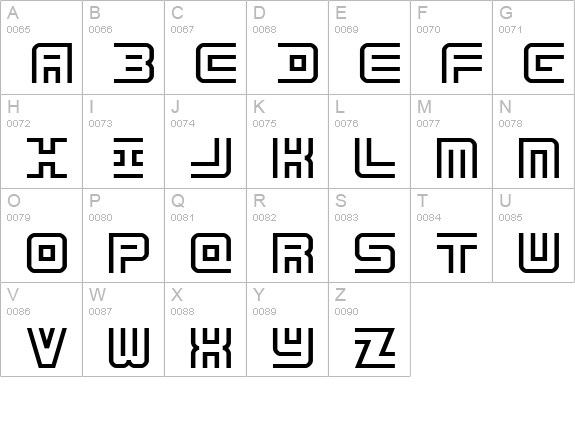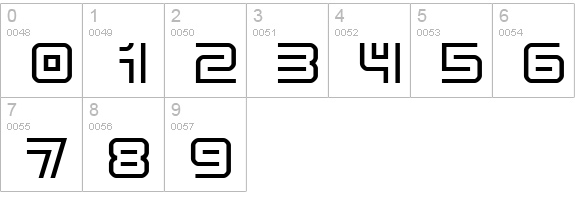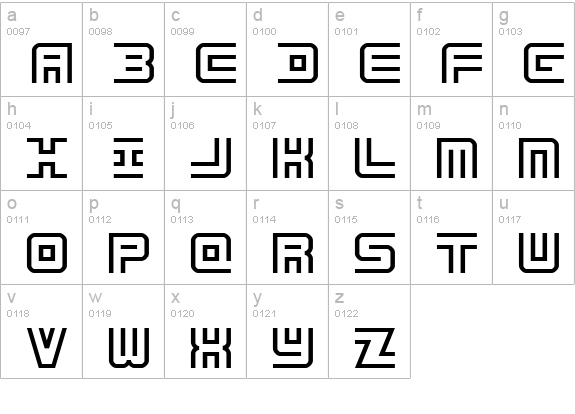
Undercover Font Details
Undercover font is a stunning display font that combines elegance and mystery in a perfect balance. This versatile typeface is designed to add a touch of intrigue to any creative project. With its sleek lines and carefully crafted details, Undercover font captures the essence of hidden secrets and covert operations. Featuring a unique blend of sharp edges and smooth curves, this font stands out from the crowd and commands attention. Its bold and confident presence makes it ideal for headlines, logos, posters, and branding materials. Whether you're working on a high-profile campaign or a personal project, Undercover font will ensure your message is delivered with impact. One of the best things about Undercover font is that it is available for free download at FontsMarket.com. This means that you can easily access this exceptional typeface without any cost. Its availability as a free font allows designers and enthusiasts to enjoy its benefits, without any restrictions or limitations. Undercover font is compatible with various design software and can be used across different platforms, making it a convenient choice for both print and digital projects. Its wide range of characters, including uppercase letters, lowercase letters, numerals, and punctuation marks, provides flexibility and versatility in creating visually appealing compositions. Download Undercover font today from FontsMarket.com and unlock its potential to elevate your designs to new heights. Whether you're aiming for a sleek and modern look or a mysterious and captivating vibe, Undercover font is the perfect tool to bring your vision to life. Embrace the power of this remarkable font and let it add a touch of intrigue to your creative endeavors.